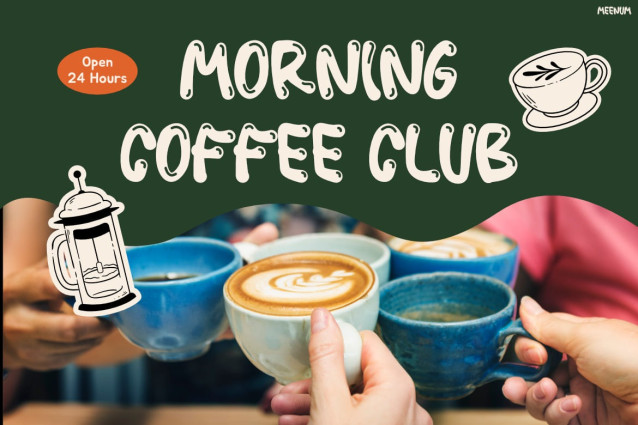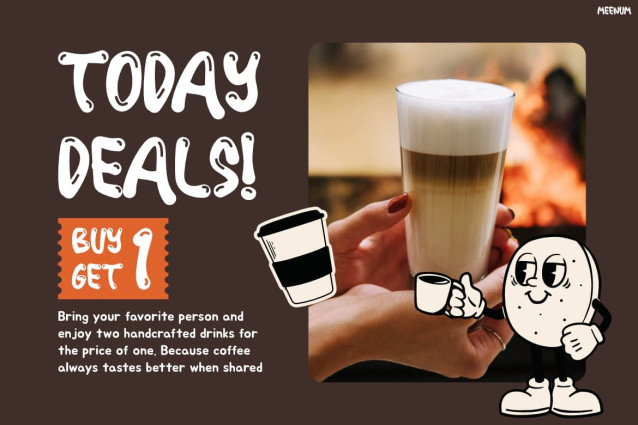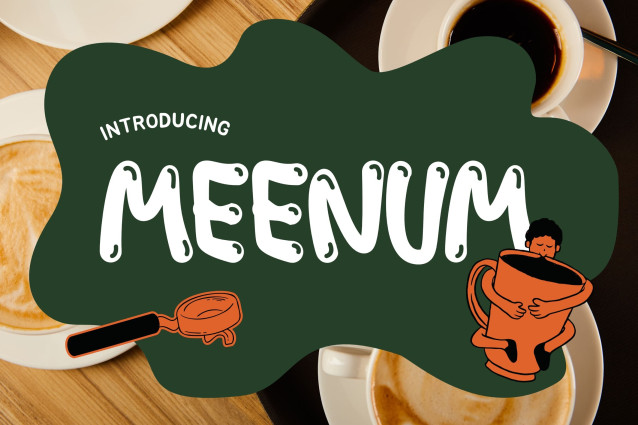
Meenum Font
Kids Font Meenum is a cheerful handwritten display font that blends playful charm with a warm, handcrafted personality. From the very first glance, its rounded brush strokes create a friendly and welcoming atmosphere. Moreover, the casual letterforms add a fun handmade touch to every design. As a result, your headlines instantly become more inviting and memorable. At the same time, the clean structure keeps every word easy to read.
Furthermore, Meenum delivers a cozy aesthetic that works beautifully across both digital and printed media. Therefore, it is an excellent choice for creative projects that need a cheerful and approachable look.